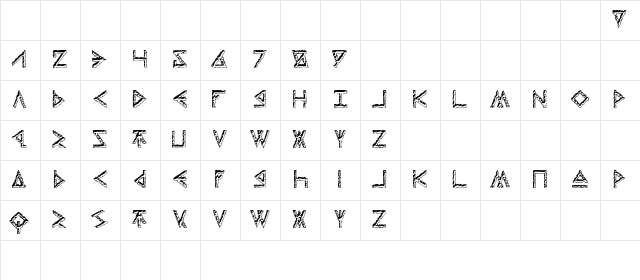
Thors Hammer Carved Regular
Designer: BoltCutterDesign
Design Context for Thors Hammer Carved
Thors Hammer Carved is a composed and adaptable typeface that performs quietly and consistently across a wide range of design contexts.